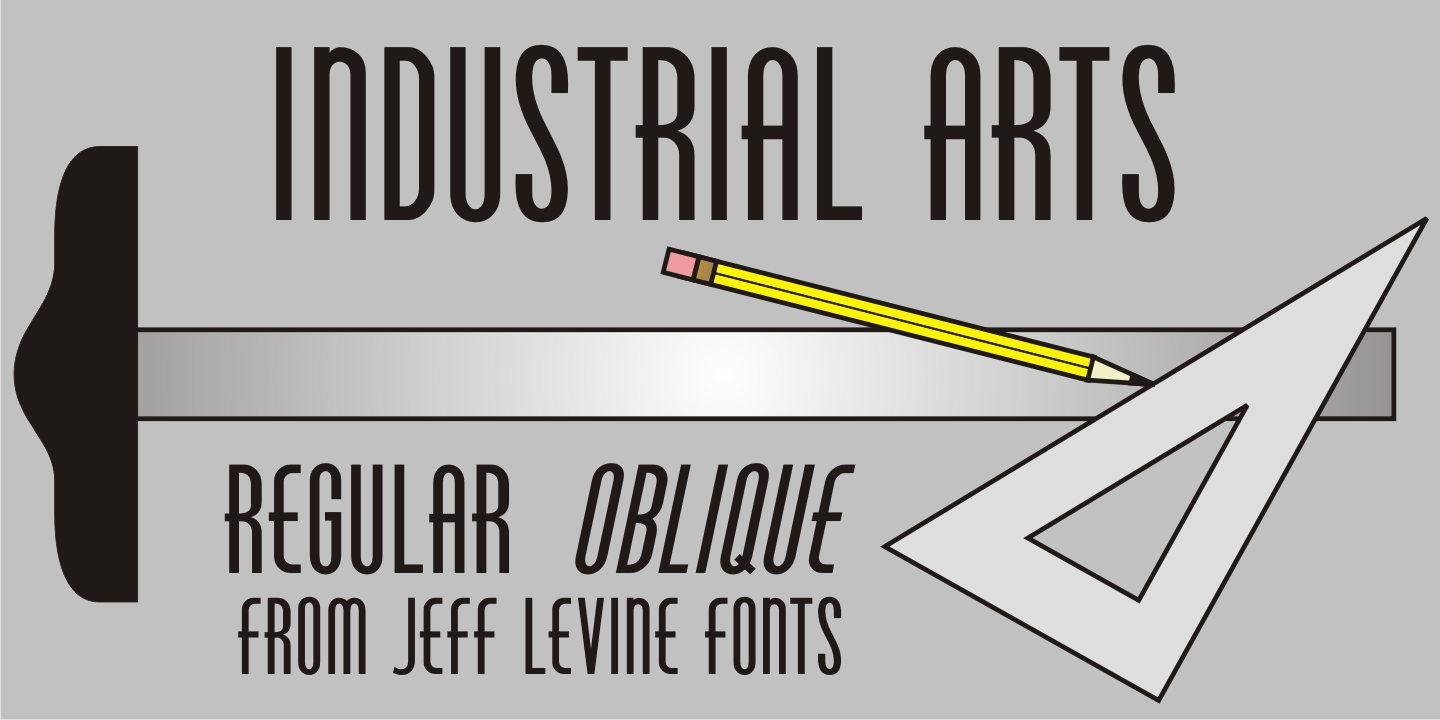
The Industrial Arts JNL Font is ideal for manufacturing company branding, technical education materials, industrial design presentations, engineering firm communications, vocational training programs, workshop signage, mechanical engineering documentation, skilled trades promotions, and vintage industrial heritage projects that require authentic typography with traditional craftsmanship appeal and technical credibility.
What makes the Industrial Arts JNL Font so exciting is its authentic representation of America's industrial heritage and skilled craftsmanship traditions that celebrates the dignity of manual work, technical expertise, and the foundational role of industrial arts in building modern society. This distinguished typeface captures the essence of traditional manufacturing culture and vocational education, featuring sturdy letterforms with honest construction and utilitarian character details that create an immediate sense of reliability, competence, and respect for skilled labor. The font's industrial authenticity and educational heritage make it the perfect choice for brands and projects that honor traditional craftsmanship, promote technical education, and celebrate the essential contribution of skilled workers to economic prosperity and technological advancement.
The Industrial Arts JNL Font family typically includes regular and bold weights, along with technical design elements and educational styling options that provide vocational organizations with authentic tools for creating credible industrial branding systems and educational communications across various technical training applications.
Technical education institutions and manufacturing companies consistently choose Industrial Arts JNL Font Free Download for its unmatched ability to convey authentic industrial credibility and educational authority. This respectable typeface represents the perfect preservation of American industrial typography traditions, offering professionals a trustworthy tool for creating meaningful connections with audiences who value skilled craftsmanship, technical competence, and honest work ethic. Whether you're developing branding for vocational schools, creating materials for manufacturing training programs, designing industrial equipment documentation, or crafting workforce development campaigns, this font delivers the authenticity and professional credibility that technical communications require.
The solidly constructed letterforms of the Industrial Arts JNL Font showcase traditional industrial proportions and educational styling details that ensure maximum credibility while maintaining excellent readability across various technical applications. The font's honest character and vocational appeal create immediate associations with competence, reliability, and the fundamental values that drive American manufacturing excellence and skilled workforce development.
Industrial designers and vocational education marketers appreciate the font's comprehensive authenticity and workforce-focused design principles, which enable the creation of typography that genuinely represents traditional American industrial values without compromising historical accuracy or educational effectiveness.
For organizations seeking to establish credible connections with skilled workforce communities and communicate authentic respect for industrial heritage through their visual identity, the Industrial Arts JNL Font provides an indispensable typography solution. Its industrial foundation and proven educational appeal make it particularly suitable for technical schools, manufacturing companies, skilled trade organizations, and workforce development programs that value traditional craftsmanship and technical excellence.
The font's optimization for both traditional industrial print materials and modern technical education platforms ensures consistent credible impact across all workforce communication channels, while its timeless industrial aesthetic provides enduring value for education-focused brand systems requiring typography that authentically represents the continuing importance of skilled trades and industrial arts education in maintaining America's manufacturing competitiveness and technical innovation capacity.